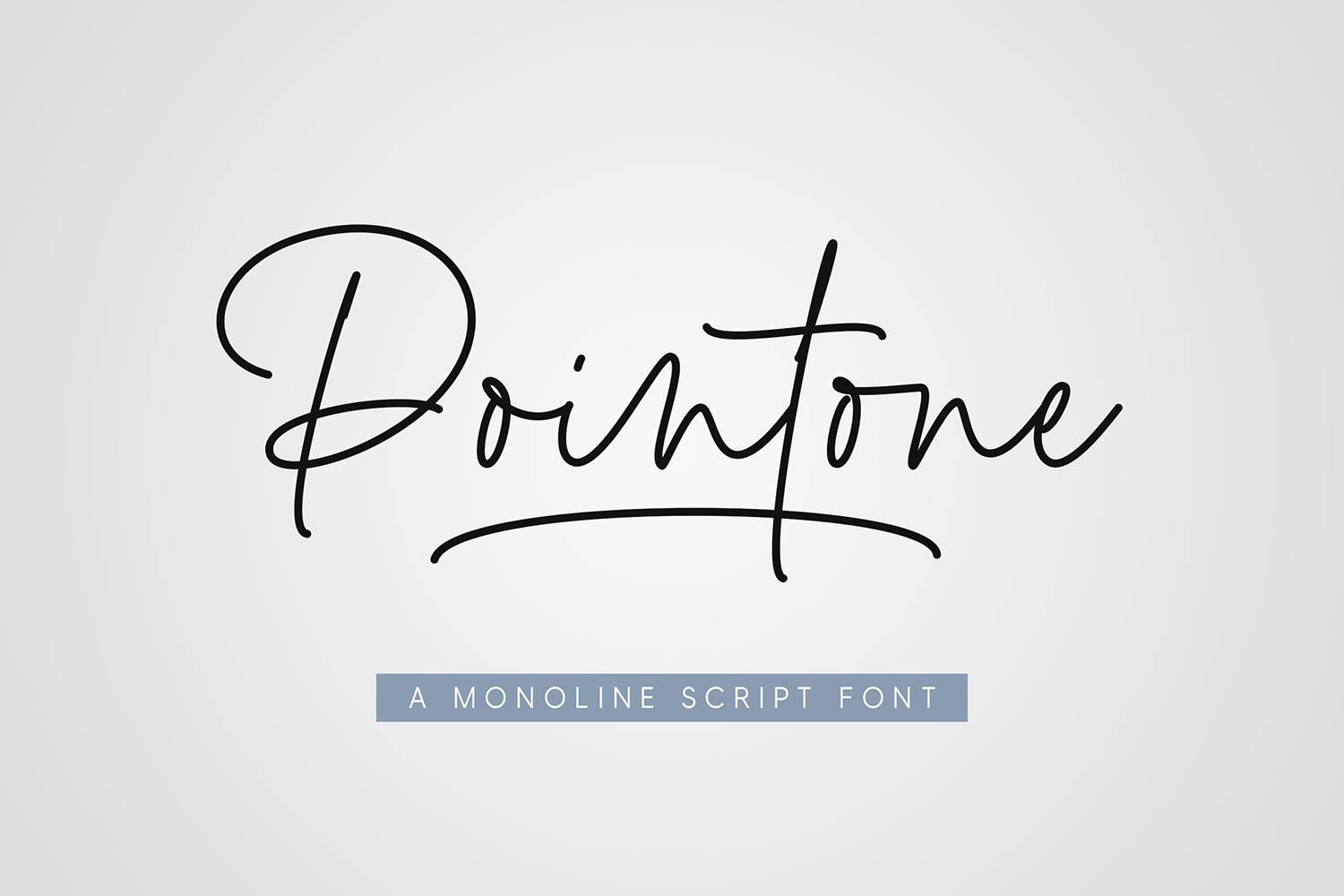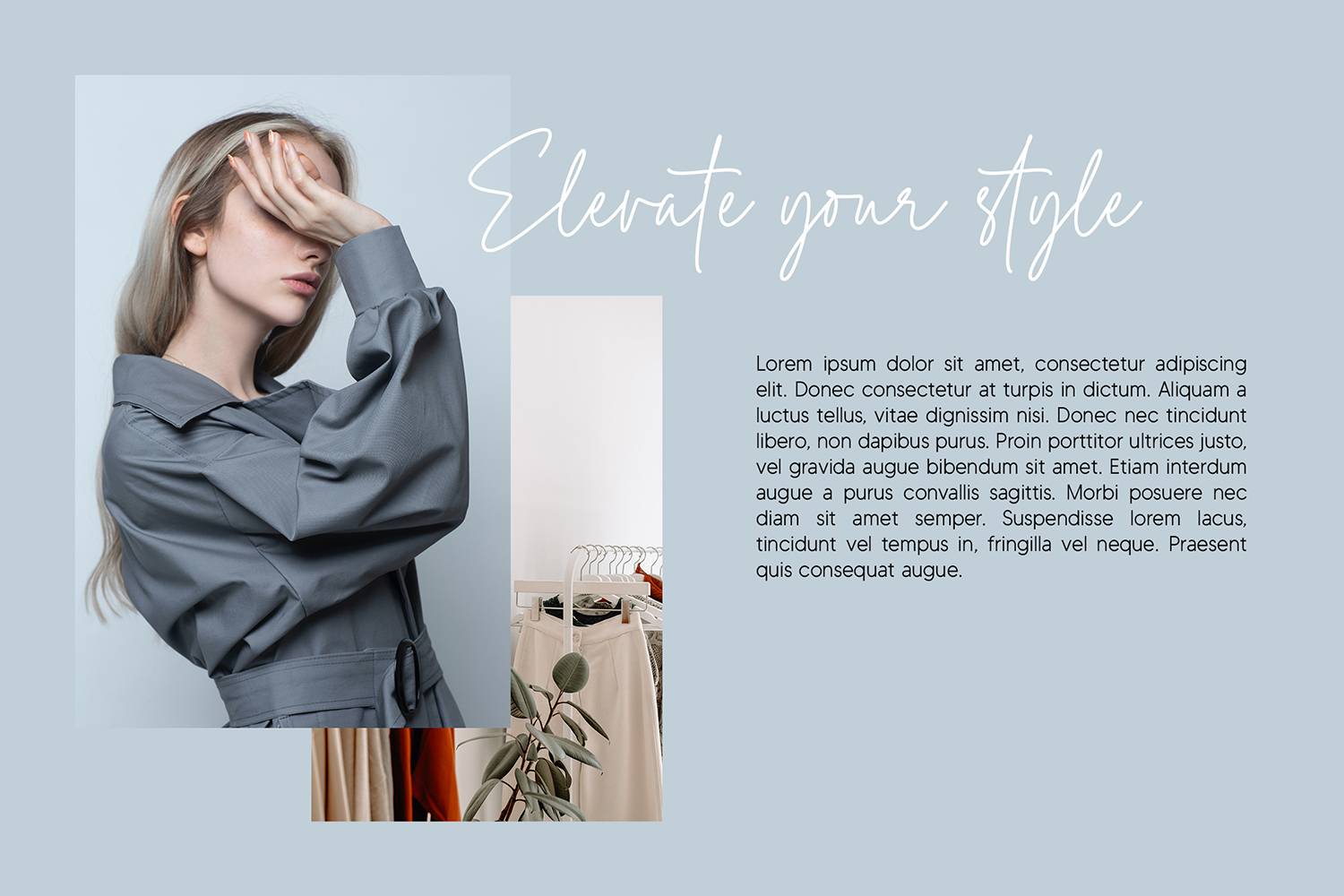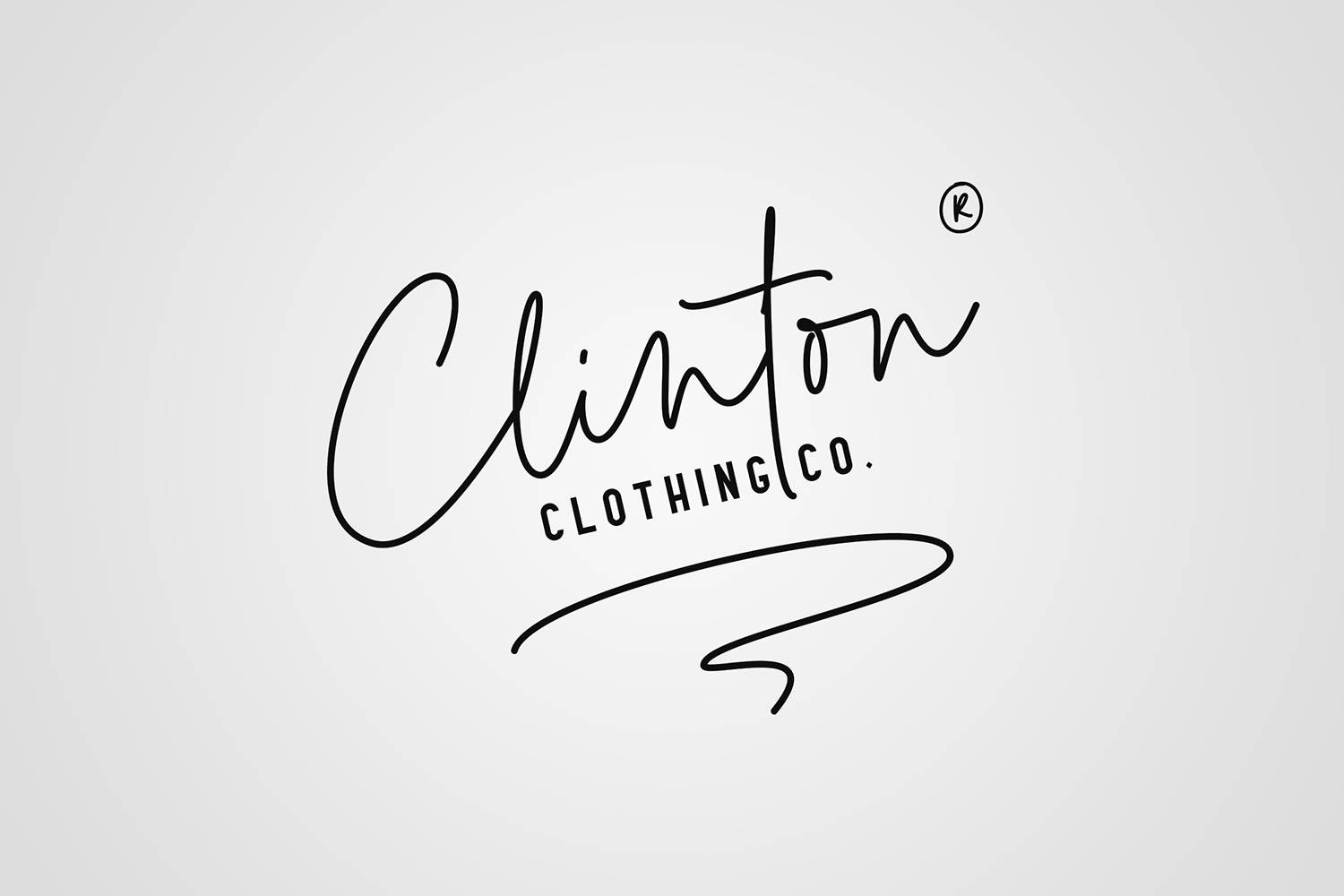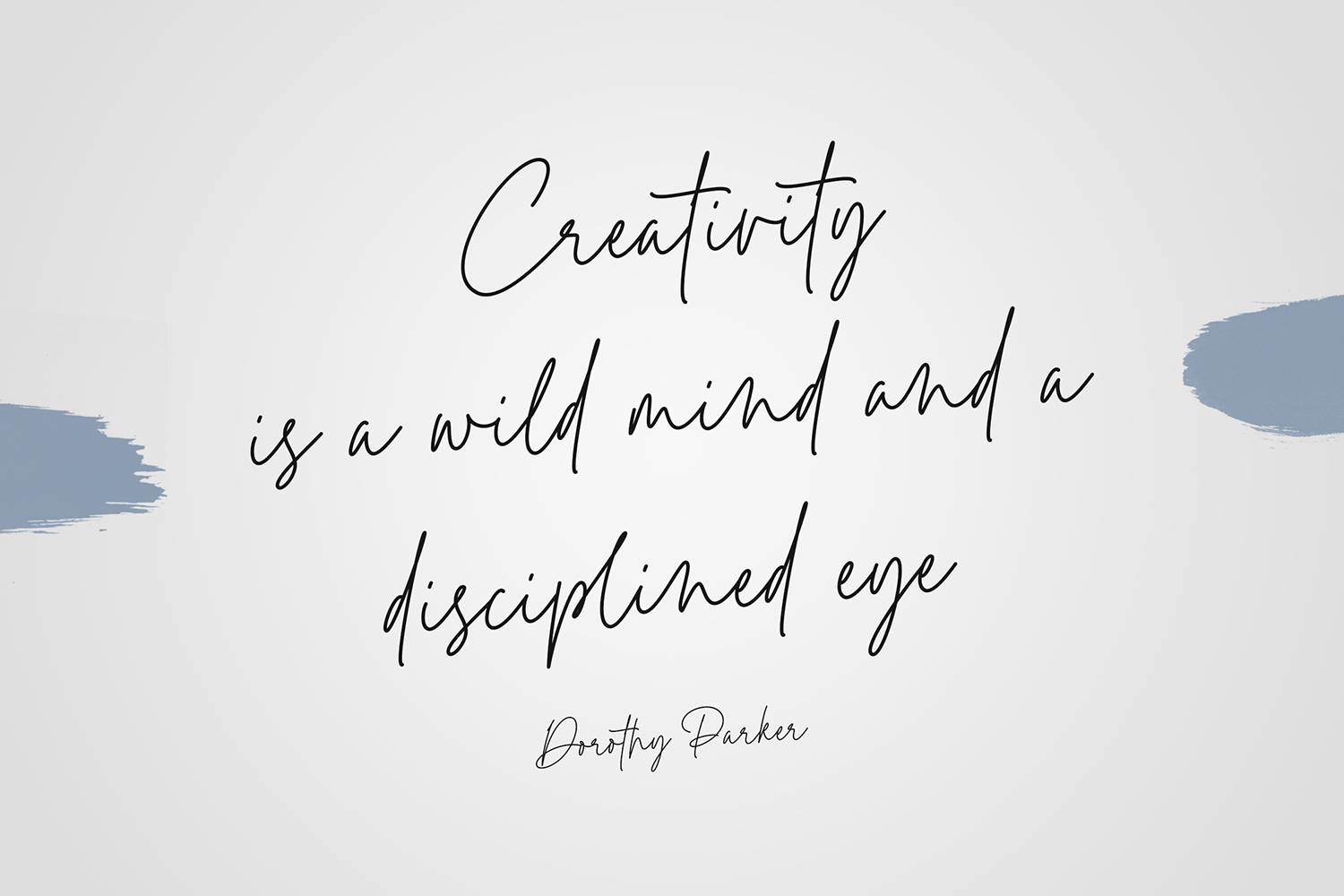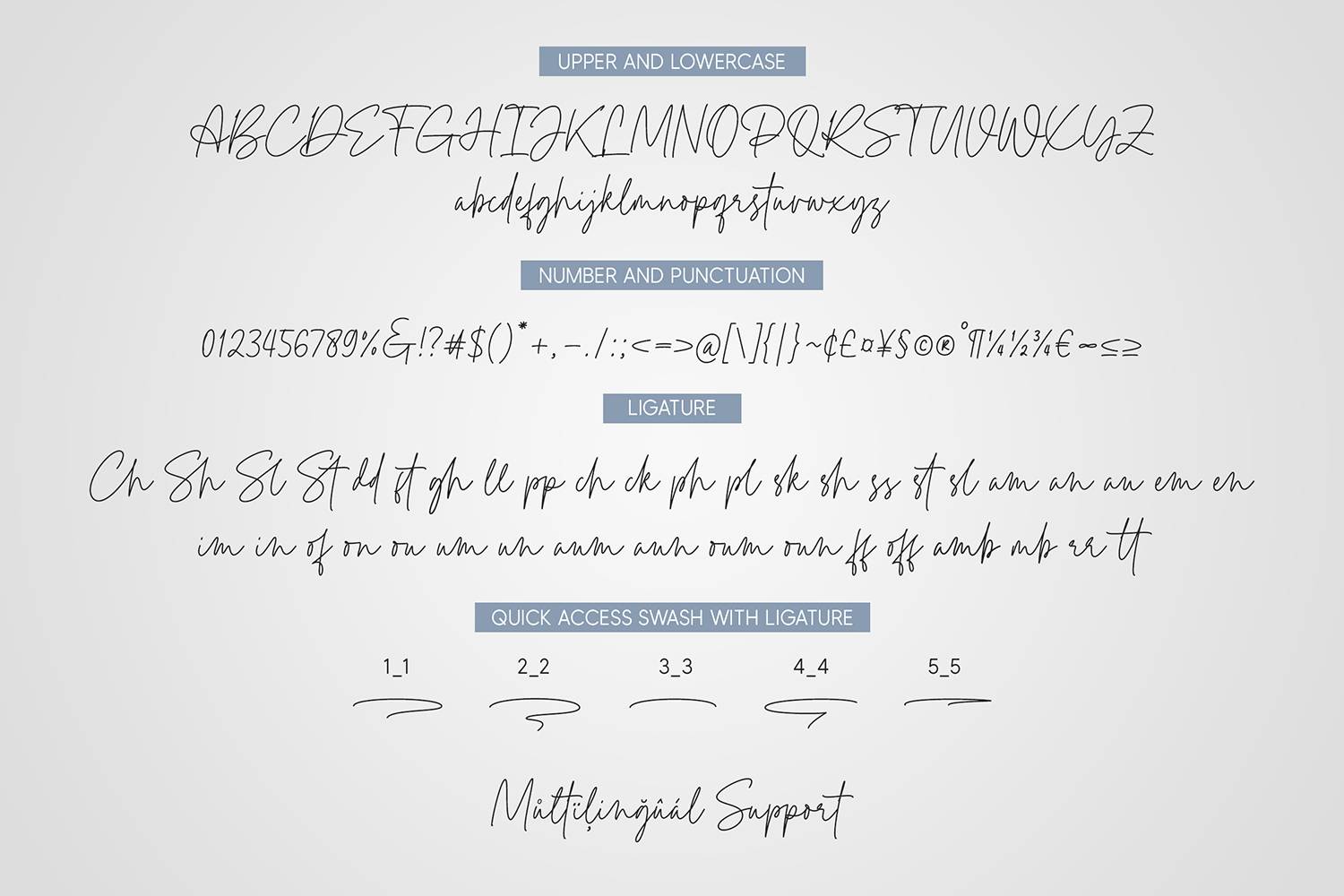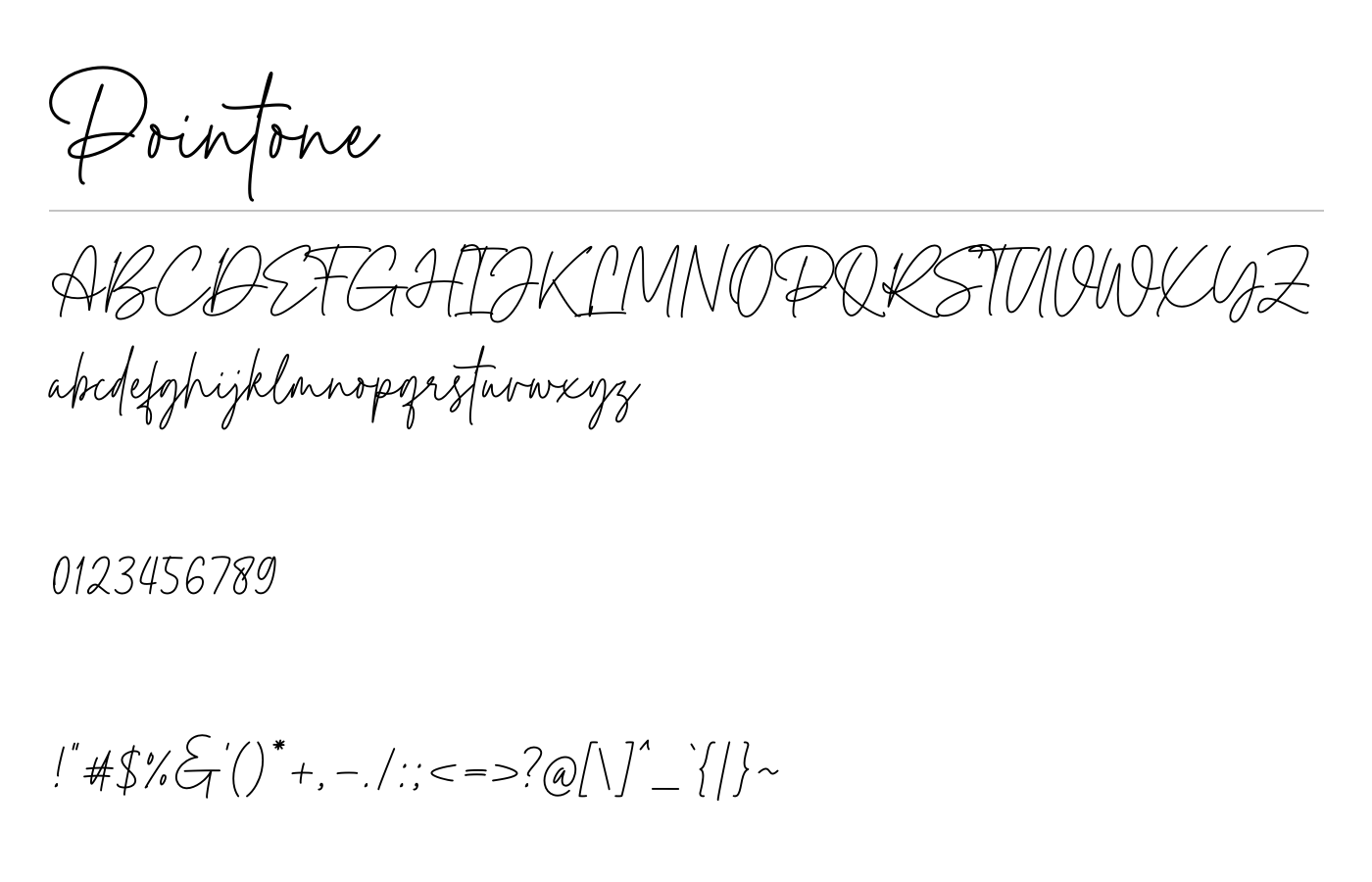
Pointone is a delicate, elegant script font characterized by fine, flowing strokes that mimic natural handwriting with a light, airy feel. Its slender letterforms and graceful curves lend a sophisticated and personal touch, making it ideal for branding, invitations, and stylish editorial use where a modern yet intimate look is desired. This font works beautifully in projects aiming to convey elegance and creativity without overwhelming the design.
Pointone Font
About Pointone Font
| Font family | Pointone Font |
| Designer | Dwi Ahidian |